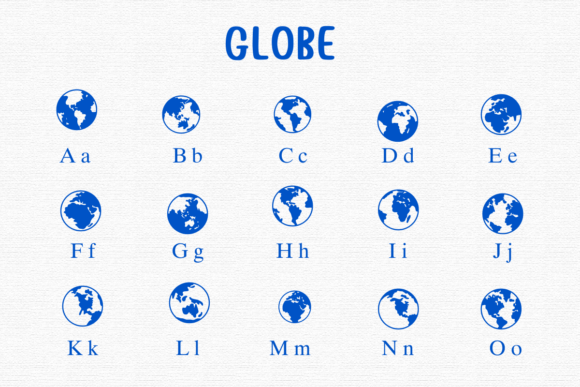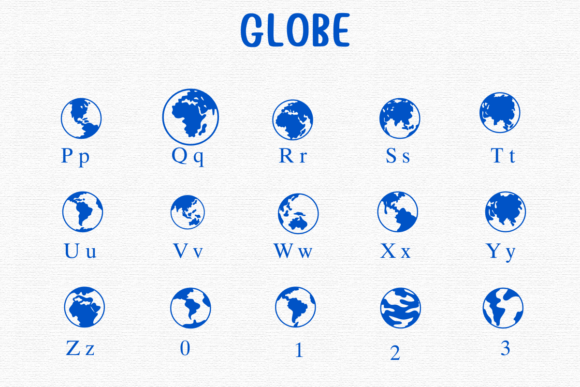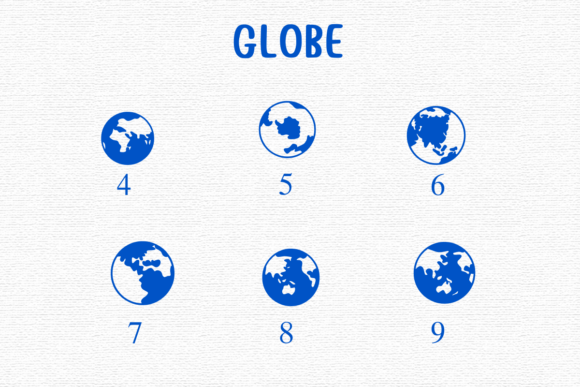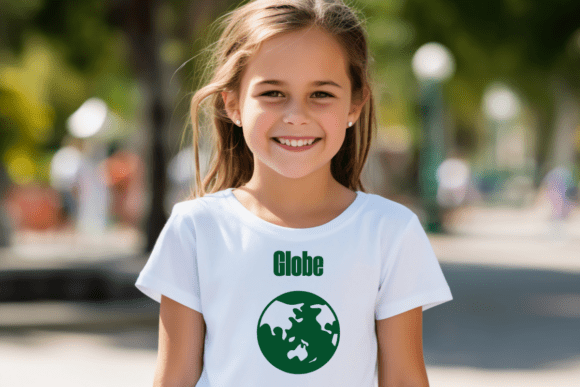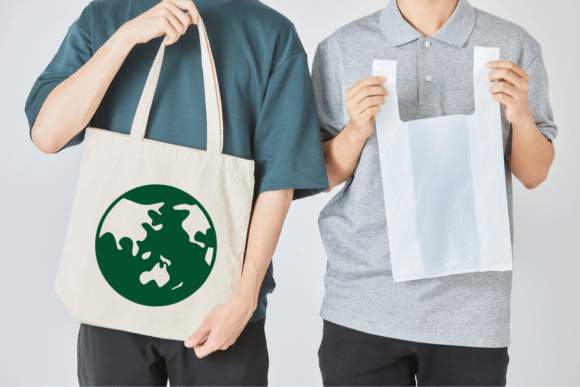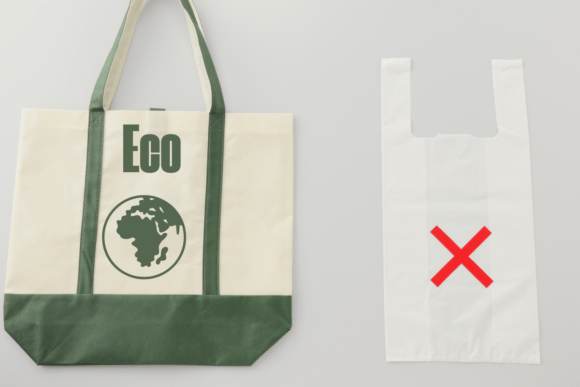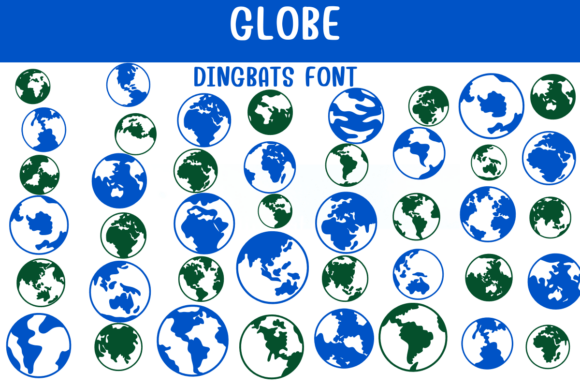
Introducing Globe Font: Elevate Your Creative Projects with a Touch of Earthly Elegance
In the world of typography, fonts play a crucial role in conveying the tone and personality of a project. For designers, crafters, and DIY enthusiasts, finding the right font can make all the difference. If you’re looking for a unique and earthly touch, look no further than Globe Font. This dingbats font is specifically designed with a global theme, making it perfect for a wide range of creative projects.
What is Globe Font?
Globe Font is a distinctive dingbats font that features an assortment of earthly elements, including globes, maps, and other geographical symbols. The font is carefully crafted to add a touch of sophistication and whimsy to any project. Whether you’re working on a wedding invitation, a DIY craft, or a logo design, Globe Font is sure to make your creation stand out.
Globe Font is incredibly versatile, making it suitable for a wide range of creative projects. Here are a few ideas to get you started:
- Wedding Invitations: Add a touch of elegance to your wedding invitations with Globe Font. Use it to highlight important details, such as the date, time, and location.
- DIY Crafts: Globe Font is perfect for DIY enthusiasts who love to create handmade crafts. Use it to add a personal touch to your projects, such as customized gift tags, cards, and decorations.
- Logos and Branding: If you’re looking for a unique font for your logo or branding, Globe Font is an excellent choice. Its earthly theme makes it perfect for businesses that focus on travel, geography, or environmental conservation.
- Decorations: Use Globe Font to create customized decorations, such as banners, garlands, and signs. Its whimsical design makes it perfect for parties, events, and special occasions.
Key Features of Globe Font
So, what makes Globe Font so special? Here are a few key features that set it apart:
- Unique Design: Globe Font features a distinctive design that is both earthly and elegant.
- High-Quality Vector Graphics: The font is created using high-quality vector graphics, ensuring that it remains crisp and clear even at large sizes.
Tips for Using Globe Font
To get the most out of Globe Font, here are a few tips to keep in mind:
- Experiment with Sizes: Globe Font looks great at a variety of sizes, so don’t be afraid to experiment. Use it as a headline font or as a subtle accent font – the choice is yours.
- Pair it with Other Fonts: Globe Font pairs well with a wide range of fonts, from serif and sans-serif fonts to script fonts. Experiment with different combinations to find the perfect look for your project.
- Use it Creatively: Globe Font is a versatile font that can be used in many creative ways. Use it to create customized illustrations, graphics, and icons that add a touch of personality to your project.